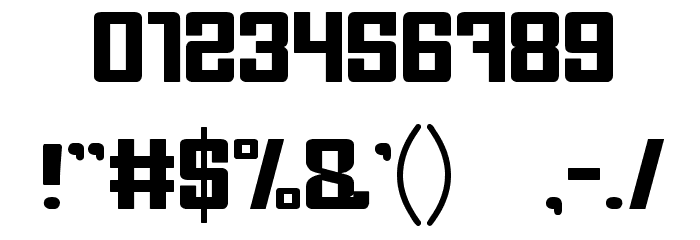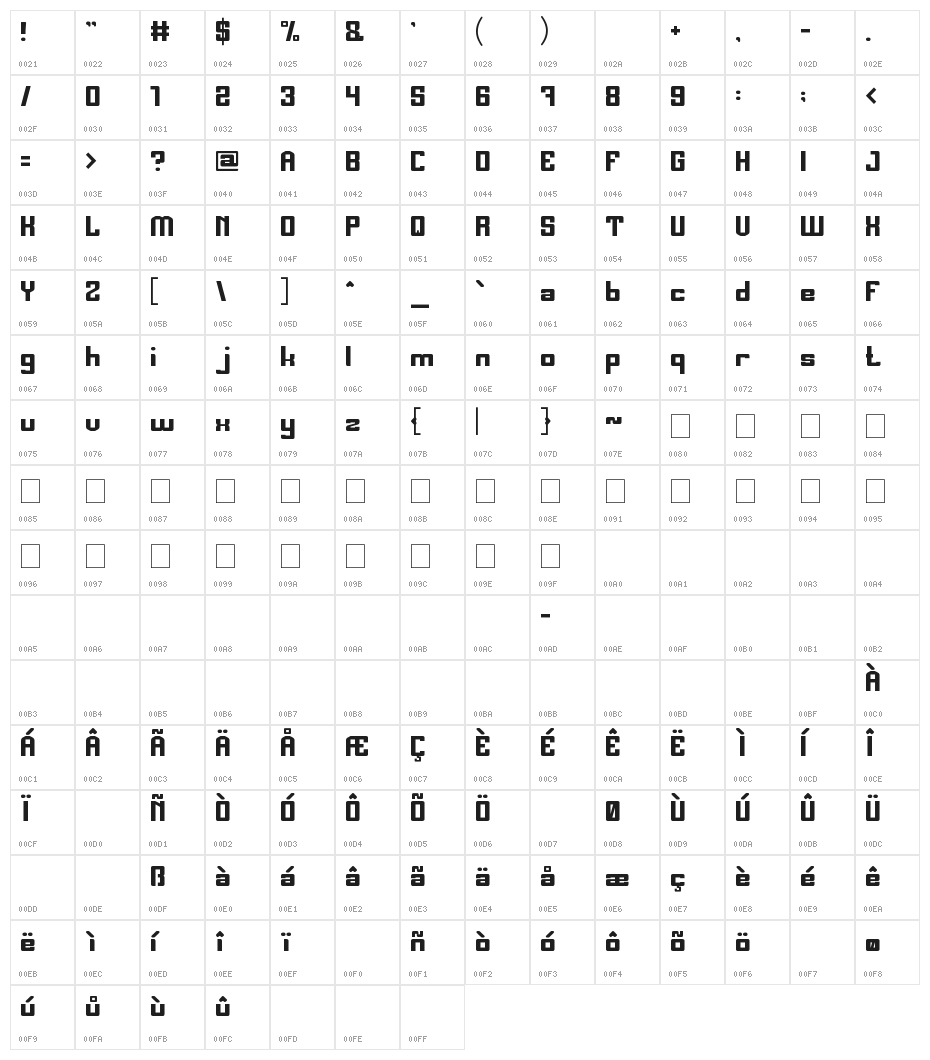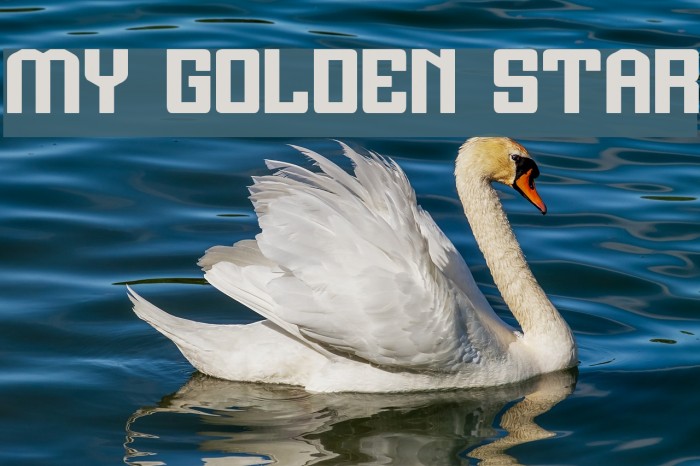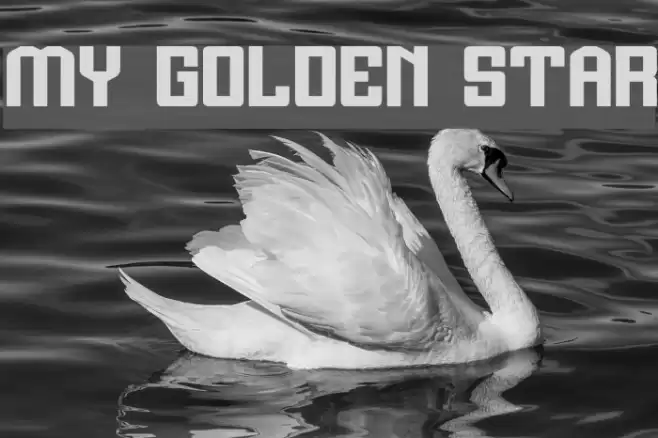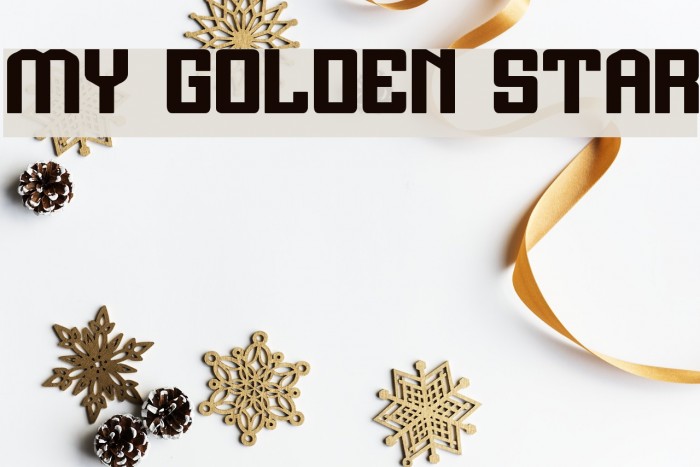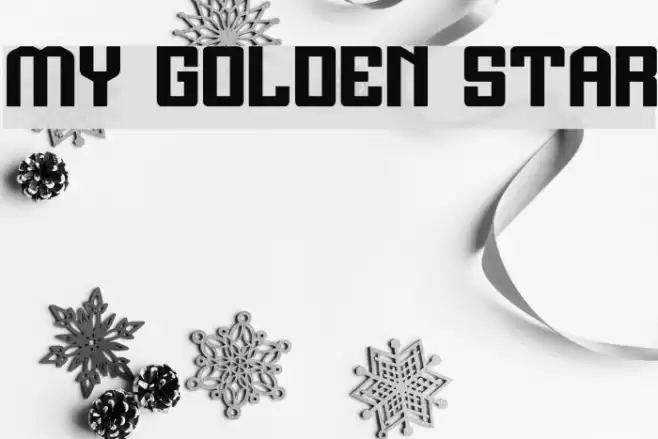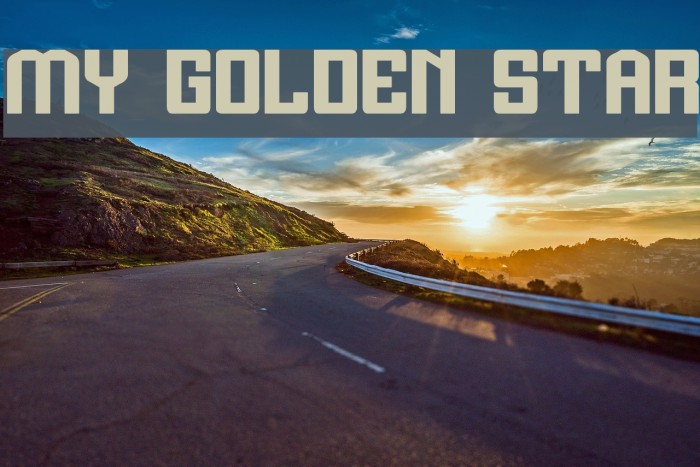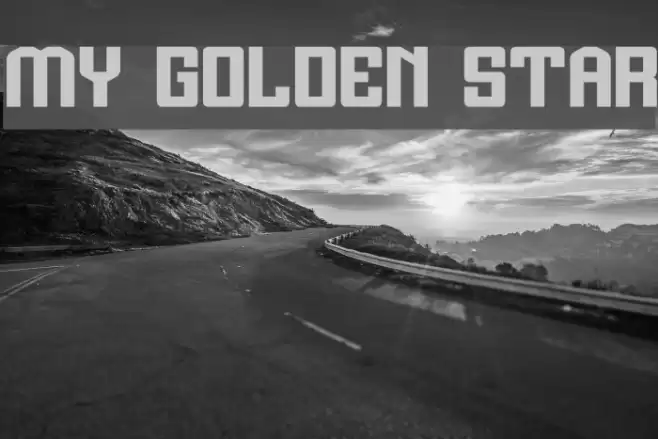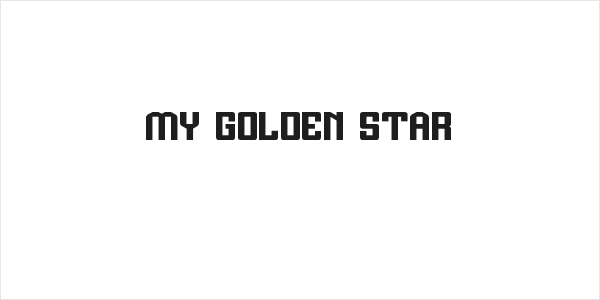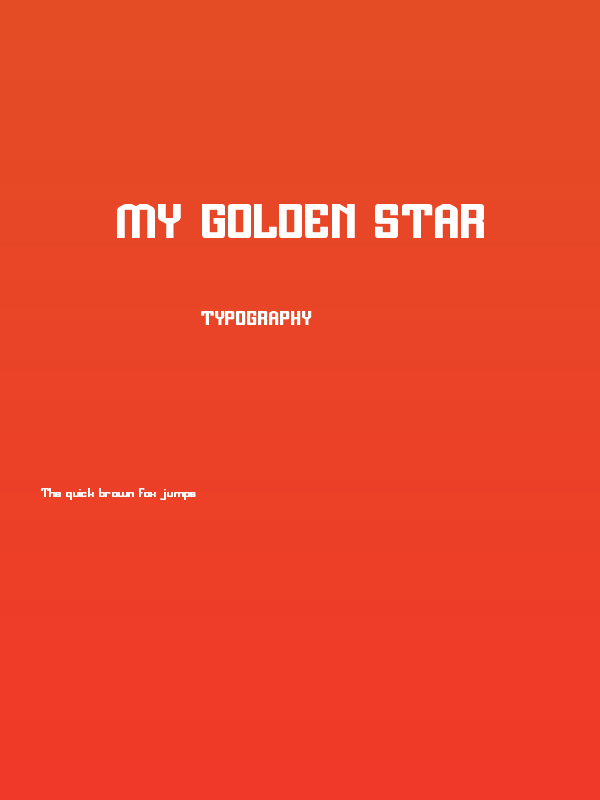
MY GOLDEN STAR Font
MY GOLDEN STAR Description
This font features a bold and geometric design with a modern, industrial feel. The characters are constructed with thick, uniform strokes, giving them a strong presence on the page. The uppercase letters are particularly striking, with a blocky appearance that emphasizes their solidity. The lowercase letters maintain the same robust style, ensuring consistency across different text cases. Numbers and special characters are designed to match the boldness and geometric nature of the alphabet, making this font highly versatile for various applications. The overall design is clean and impactful, suitable for making a statement.